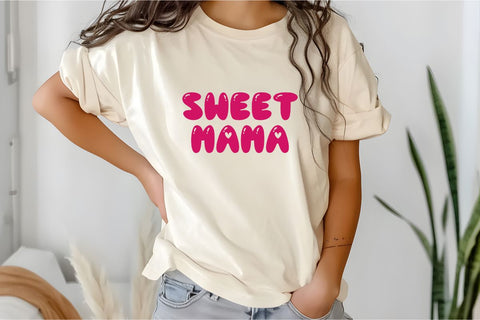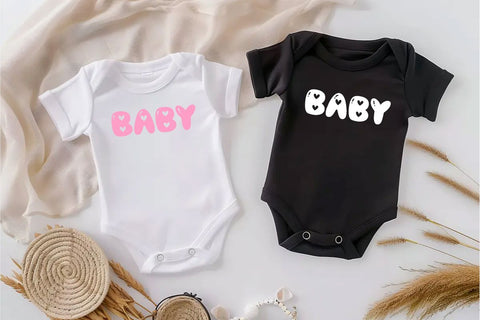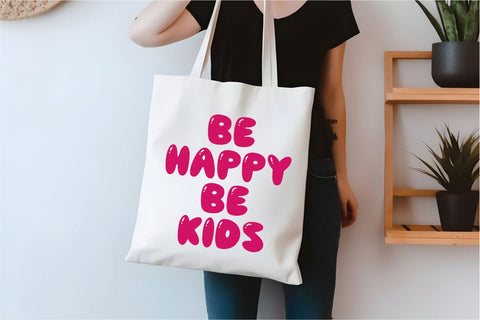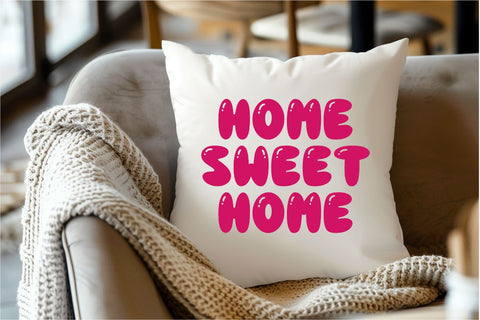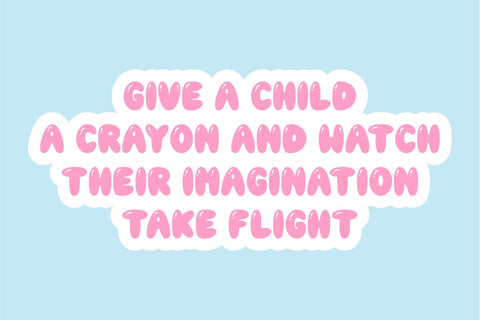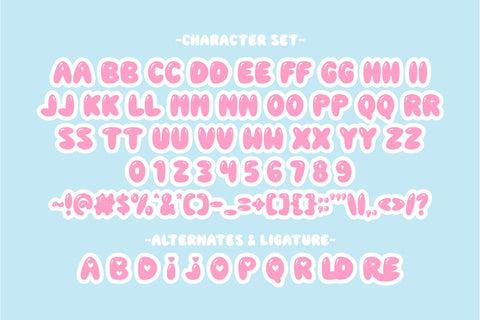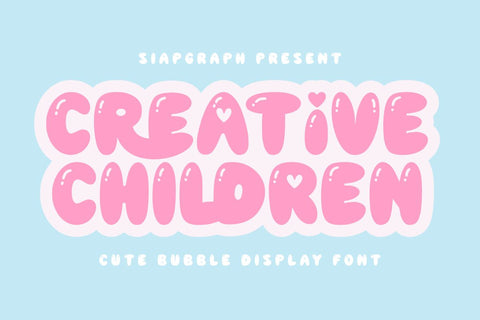
Creative Children - Cute Bubble Font
Creative Children is an absolutely adorable and playful bubble display font that instantly brings a burst of youthful energy and whimsical charm to any design. Its plump, rounded letterforms feature delightful heart accents, creating a truly endearing and eye-catching presence perfect for young audiences. This font is perfect for infusing a dose of fun and cheerfulness into a wide variety of creative projects aimed at kids. Imagine Creative Children enhancing vibrant stickers, enchanting planner elements for school, eye-catching t-shirt designs for little ones, sweet product labels for children's goods, cheerful birthday invitations, personalized tumblers, and a plethora of other engaging crafts. Its distinctively friendly and approachable style makes it exceptionally well-suited for products targeting end-users who enjoy crafting with tools like Cricut and for sublimation projects, as well as for creating appealing stickers and planner elements with a truly heartwarming flair. Creative Children's unforgettable and lively character will ensure your creations stand out and bring a big smile to everyone who sees them, making every design a celebration of youthful imagination.